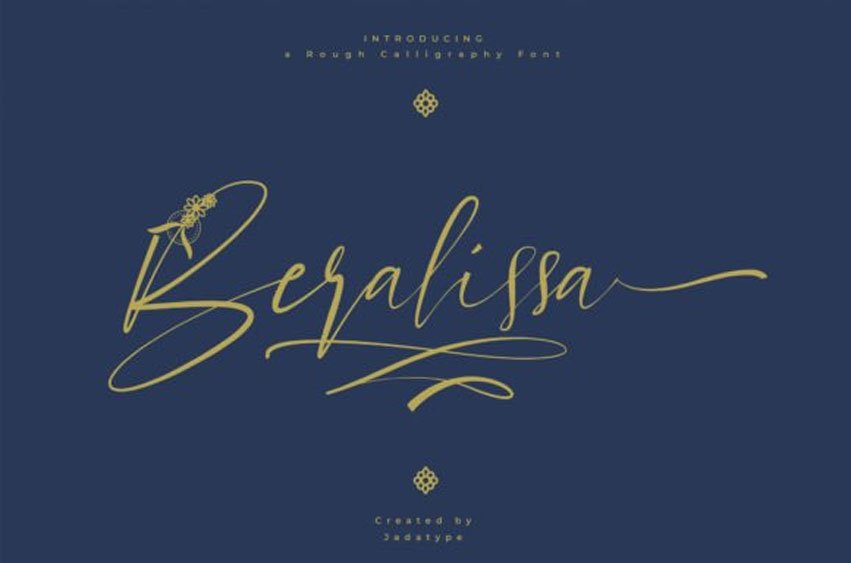
Beralissa Font is elegant and fun calligraphy font is a great way to add a playful touch to your next project, be it a logo, stationery, poster, or something else.